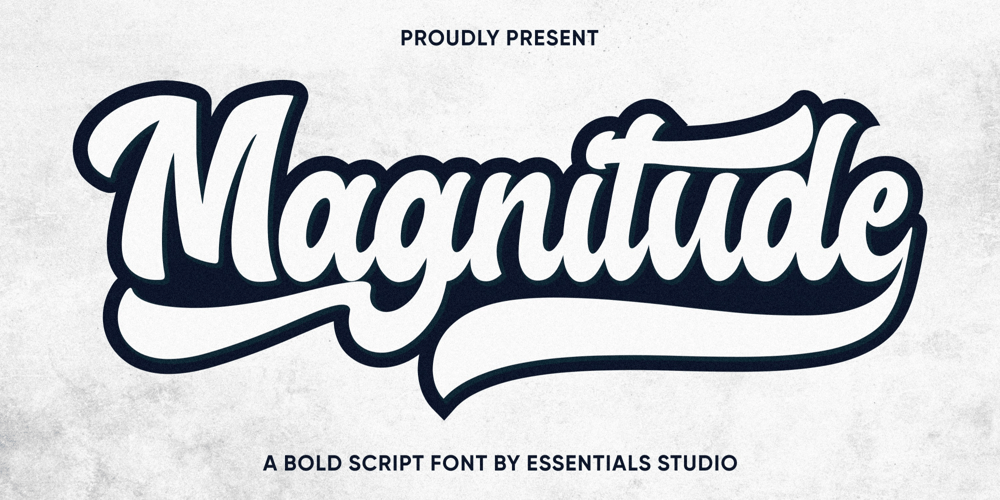
Magnitude Sential Font Family was designed by Bagus Panji Asmoro and published by Essentials Studio. Magnitude Sential contains 1 styles and family package options. Magnitude is a bold script font perfect for logos, lettering, product packaging, branding projects, magazines, social media posts, wedding designs, or just used to express words above the background. Use it now, and make amazing work with Magnitude!